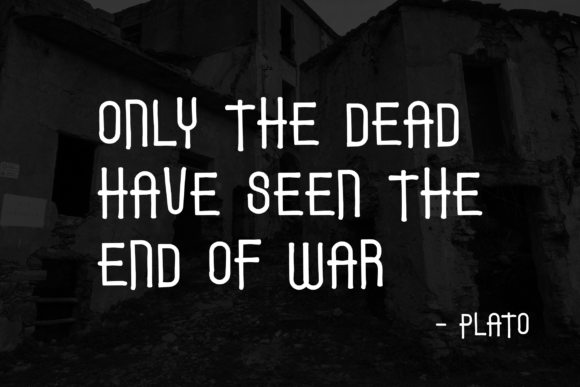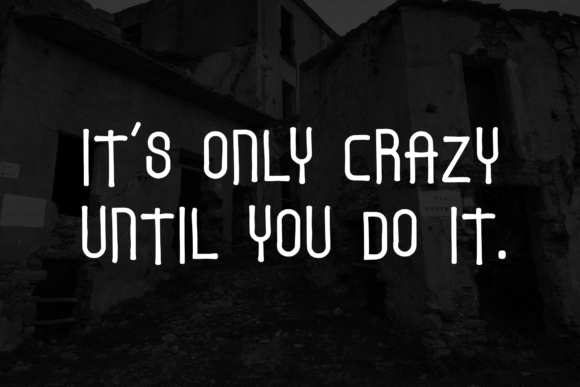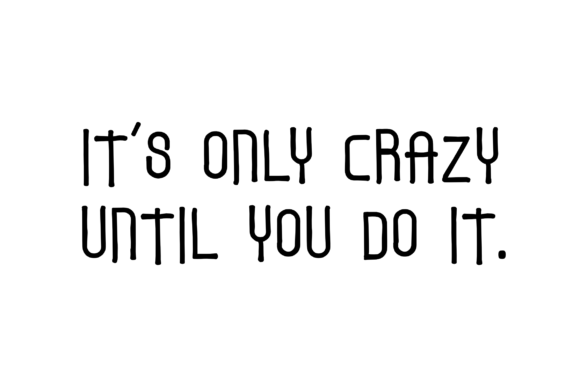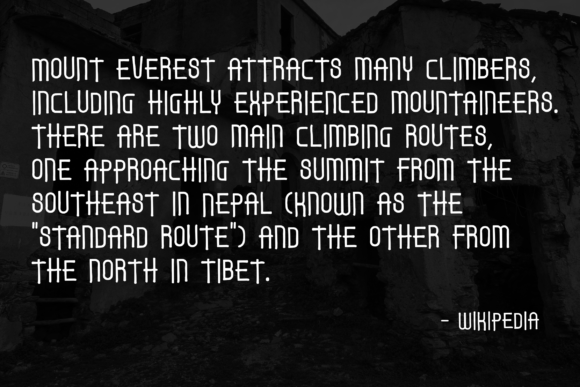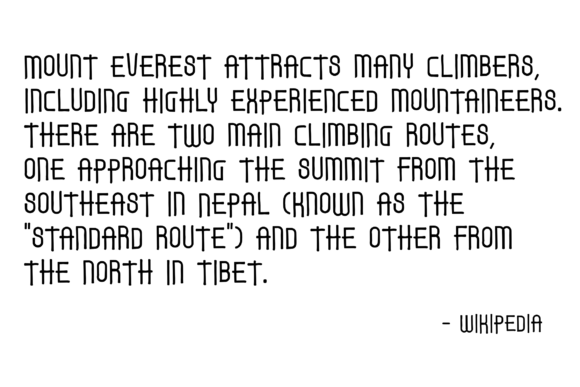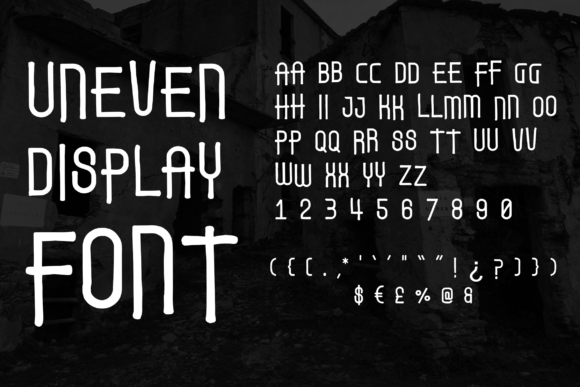
Introducing Apocalypse Font: Unleash the Chaos in Your Designs
In the world of typography, fonts play a crucial role in conveying the tone and personality of a design. For designers and crafters looking to add an edge to their projects, the Apocalypse Font is an excellent choice. This uneven display font is perfect for creating a sense of roughness and irregularity, making it ideal for designs that require a bold and daring approach.
What is Apocalypse Font?
Apocalypse is an all-caps font, but with a twist. Unlike traditional fonts, Apocalypse features varied heights for small-case and upper-case input, giving it a unique and distressed look. This distinctive characteristic makes it perfect for designers who want to add a touch of chaos to their designs. The font’s uneven texture and irregularities create a sense of raw energy, making it perfect for projects that require a bold and attention-grabbing approach.
Key Features of Apocalypse Font
- Uneven display font: Apocalypse features an irregular texture that adds a touch of roughness to your designs.
- All-caps font with varied heights: The font’s varied heights for small-case and upper-case input create a unique and distressed look.
- Perfect for bold designs: Apocalypse is ideal for designers who want to create attention-grabbing designs that make a statement.
- Great for crafters and designers: Whether you’re a designer or crafter, Apocalypse is perfect for adding an edge to your projects.
How to Use Apocalypse Font in Your Designs
Apocalypse Font is versatile and can be used in a variety of design projects, including:
- Posters and flyers: Add a bold and attention-grabbing touch to your posters and flyers with Apocalypse Font.
- Logos and branding: Create a unique and memorable brand identity with Apocalypse Font.
- Social media graphics: Make your social media graphics stand out with the bold and irregular texture of Apocalypse Font.
- Crafting projects: Add a touch of edginess to your crafting projects, such as handmade cards and scrapbooking.
Tips for Pairing Apocalypse Font with Other Fonts
Pairing Apocalypse Font with other fonts can create a visually appealing contrast. Here are some tips for pairing Apocalypse Font with other fonts:
- Pair with a clean font: Pair Apocalypse Font with a clean and simple font to create a striking contrast.
- Use a font with a similar texture: Pair Apocalypse Font with a font that has a similar texture or irregularity to create a cohesive look.
- Experiment with font sizes: Experiment with different font sizes to create visual interest and hierarchy.
| Font Name | Apocalypse Font |
| Author | RADesigns21 |
Apocalypse Font is a unique and bold display font that’s perfect for designers and crafters looking to add an edge to their projects. Its uneven texture and irregularities create a sense of raw energy, making it perfect for designs that require a bold and attention-grabbing approach. With its versatility and flexibility, Apocalypse Font is an excellent addition to any designer’s or crafter’s toolkit.